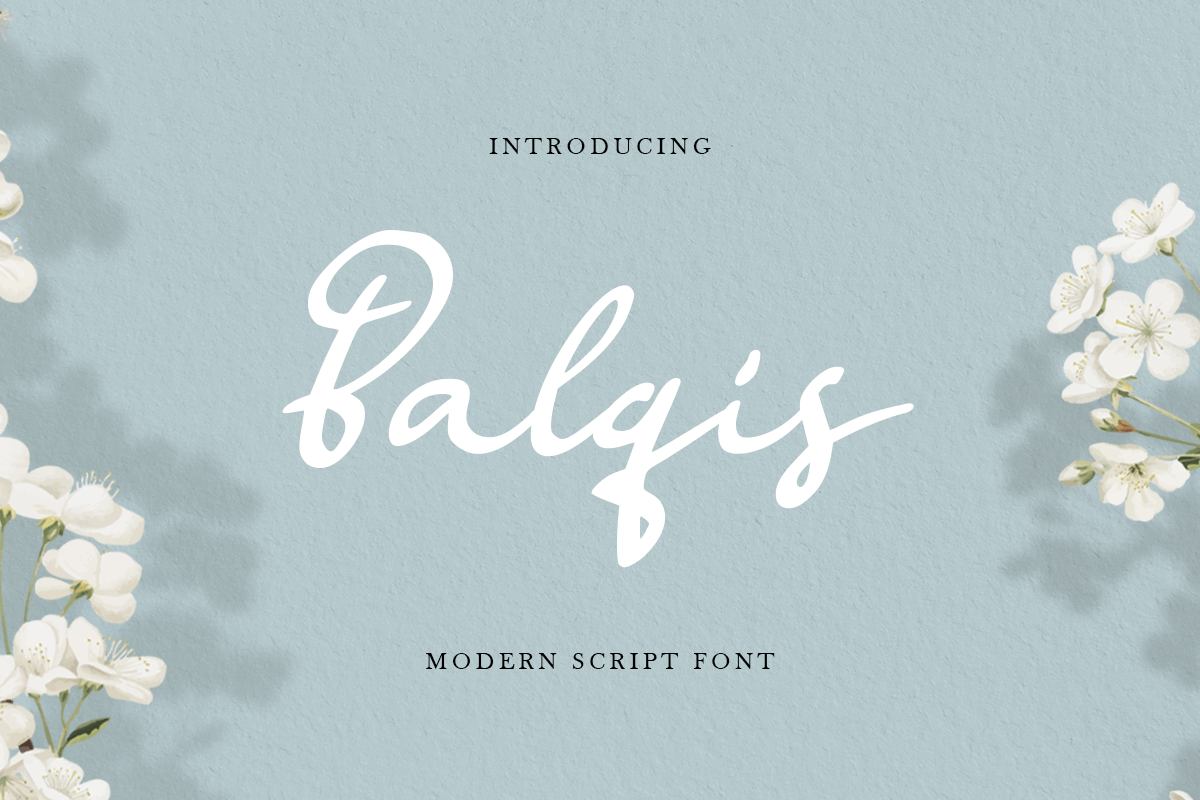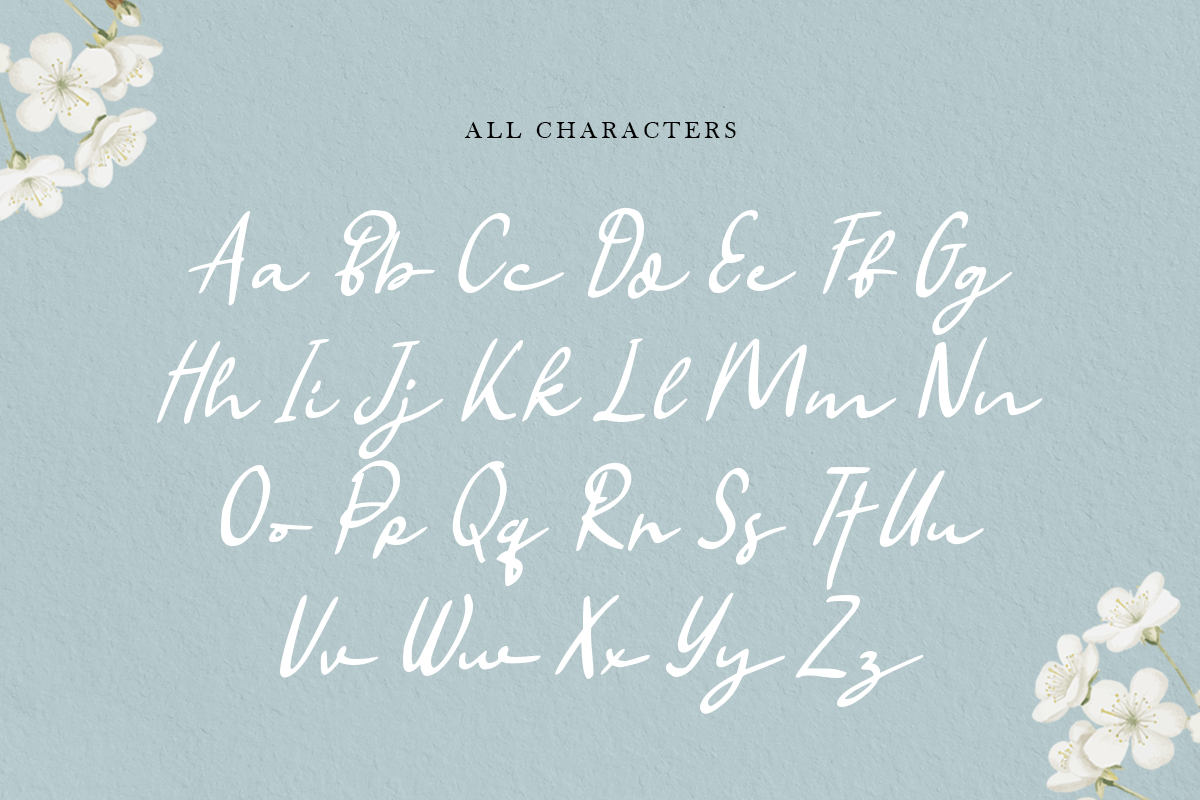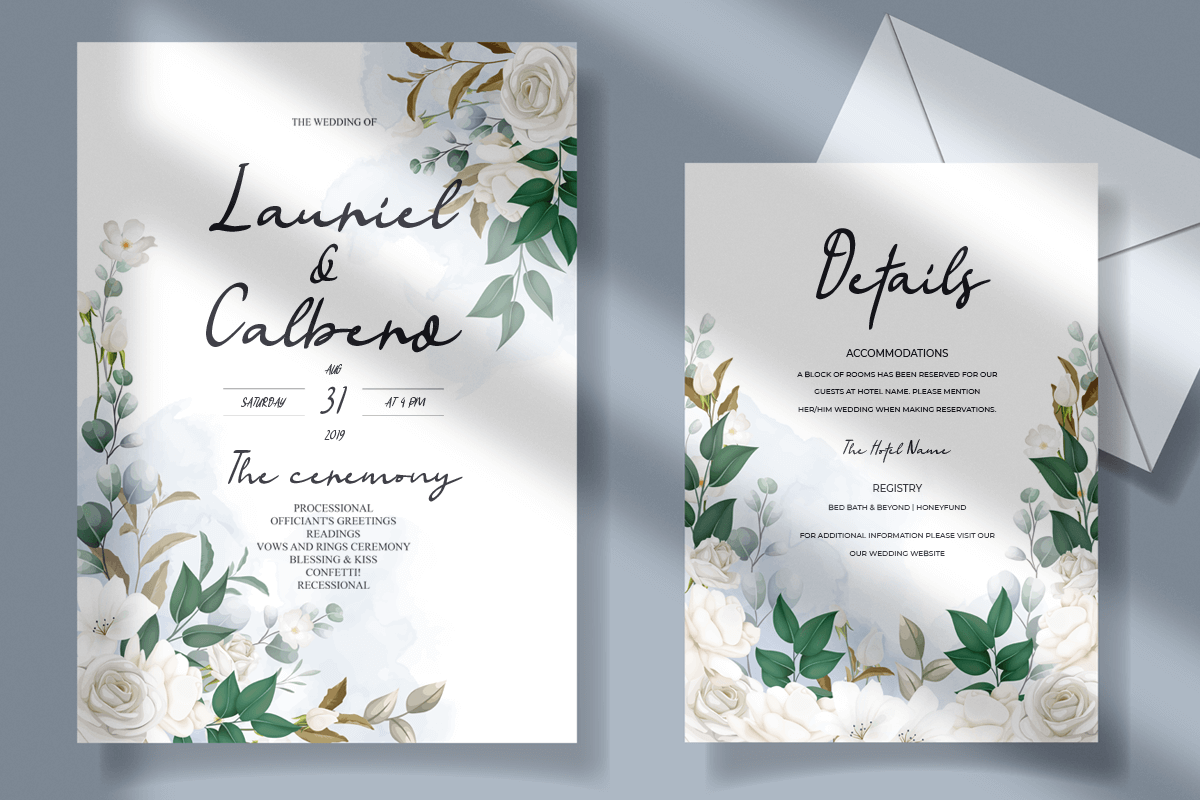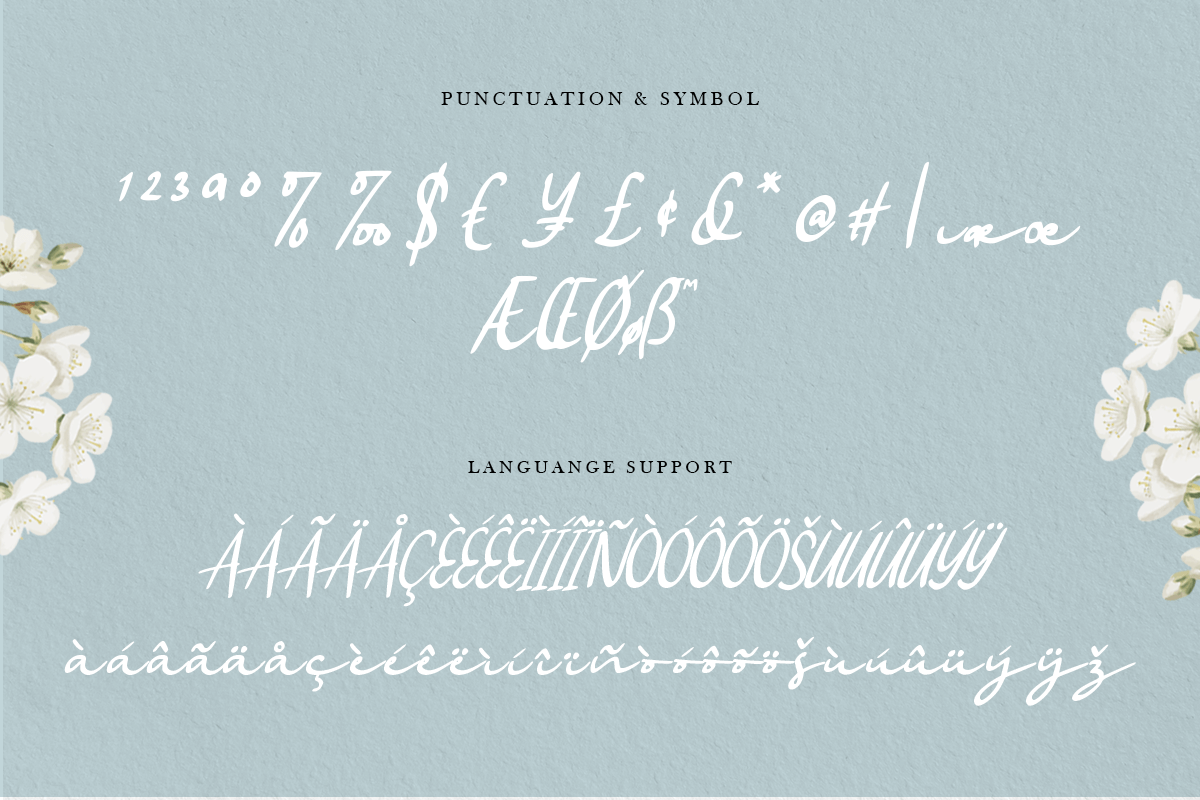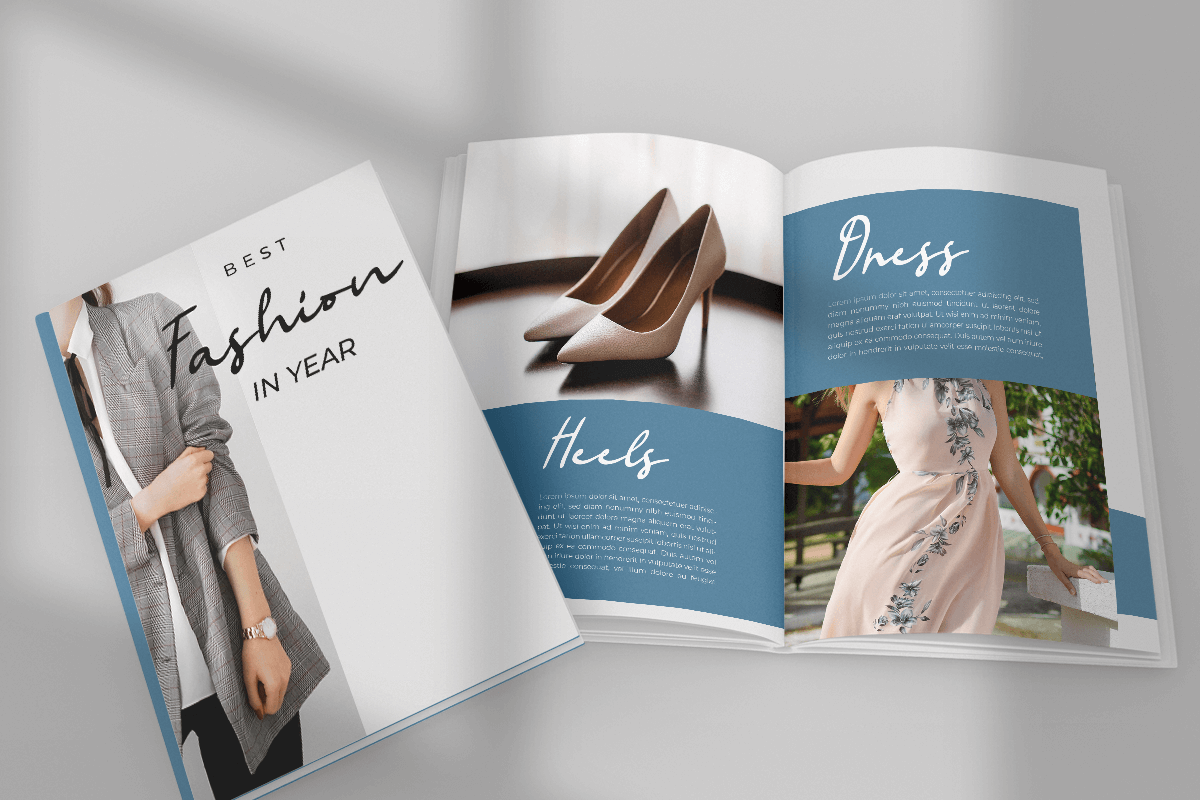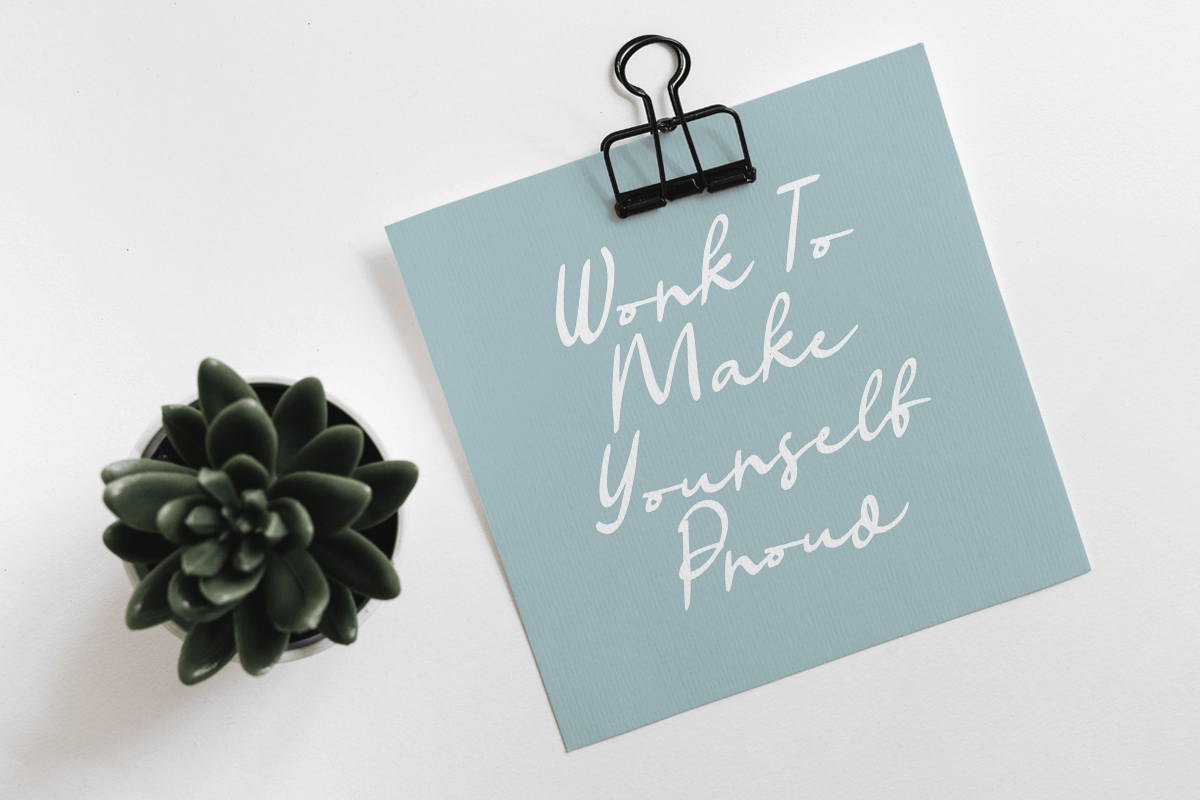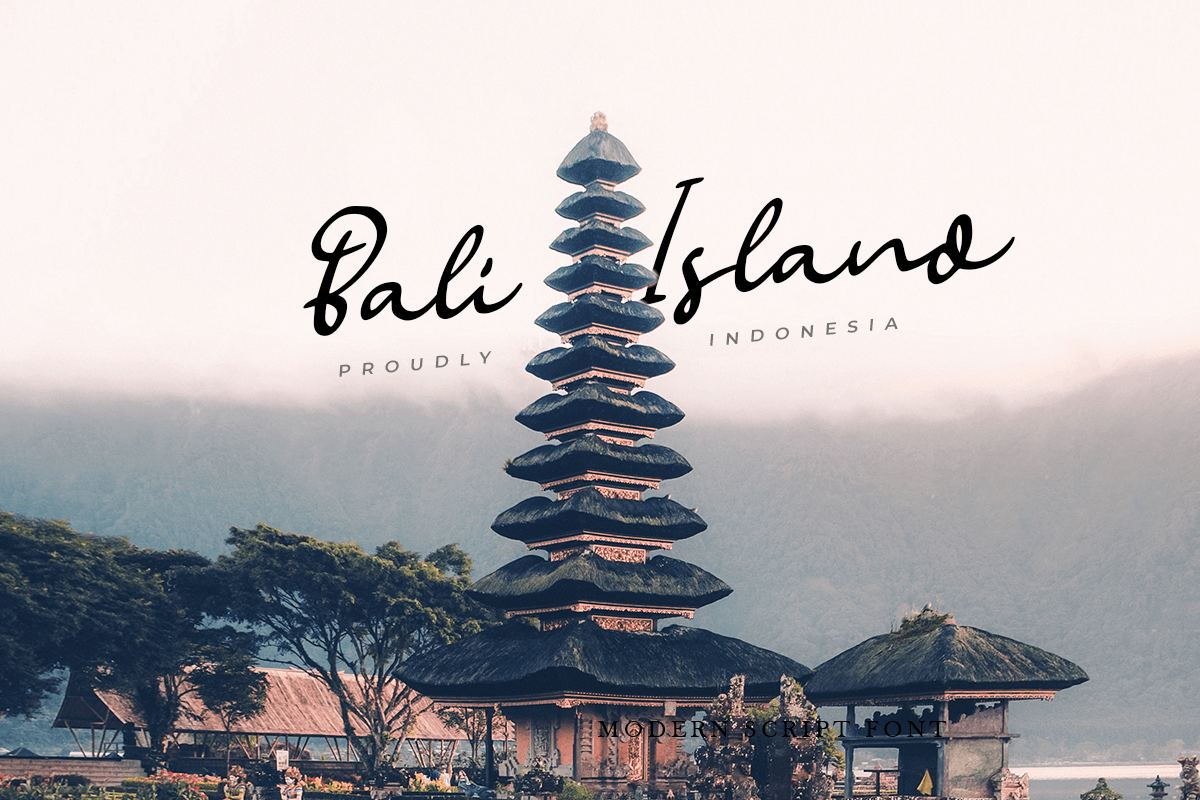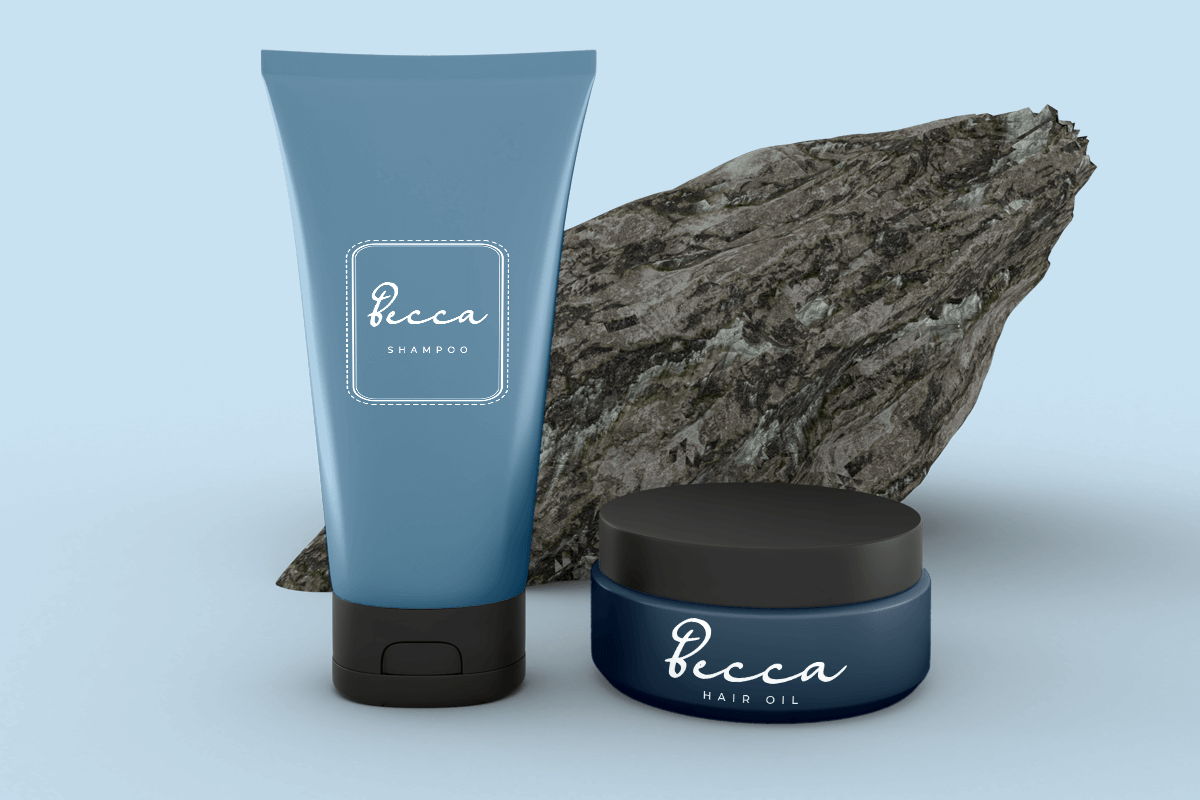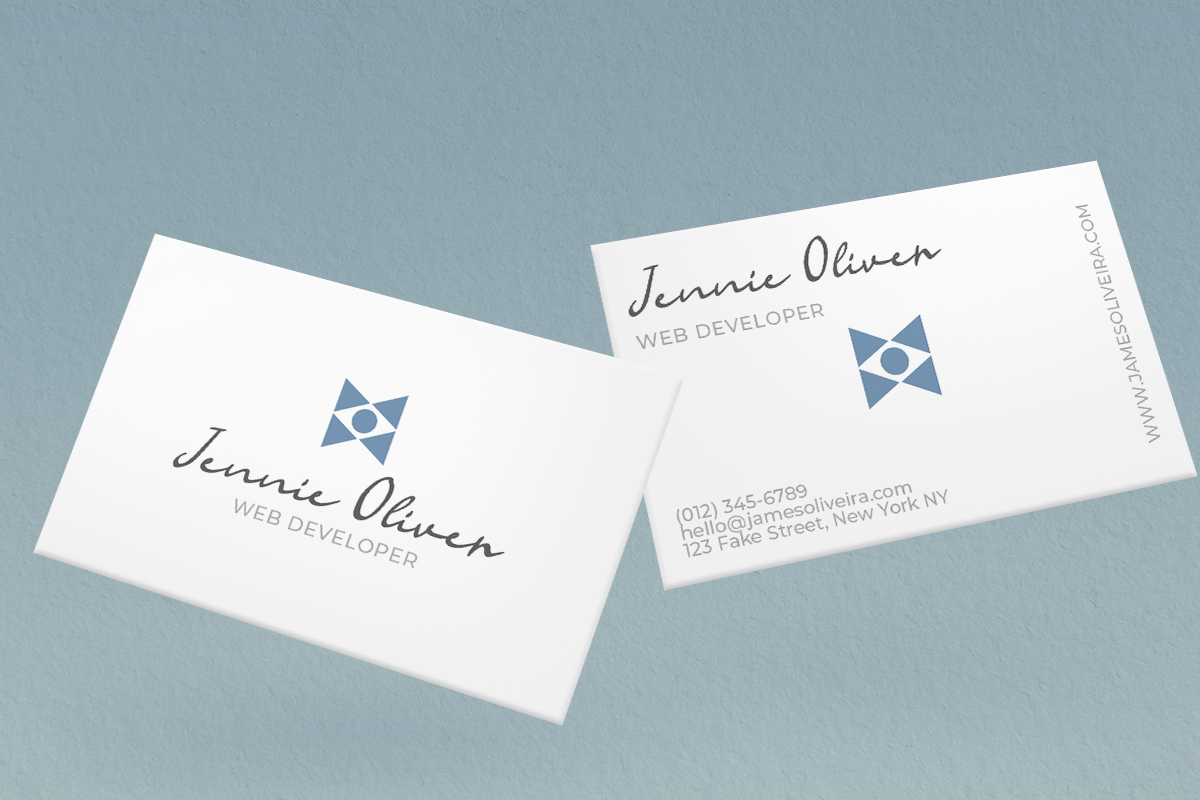
Balqis
-Handwritten Siganture Modern Script Font
Balqis
Balqis is a Signature Handwritten font with authentic, elegant, modern, beauty and feminine style. This font crafted specials for Authentic signature projects, ready to use on branding, Social Media, Logo, and Many more that needs authentic touches.